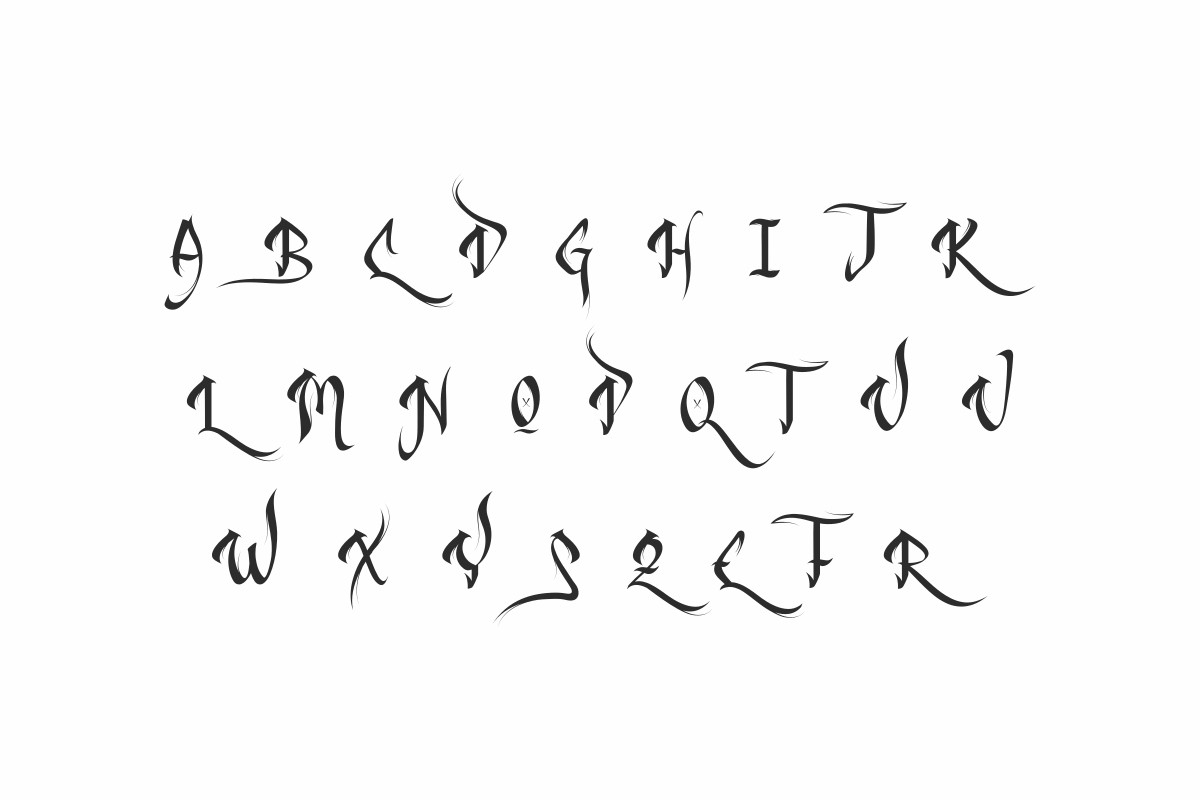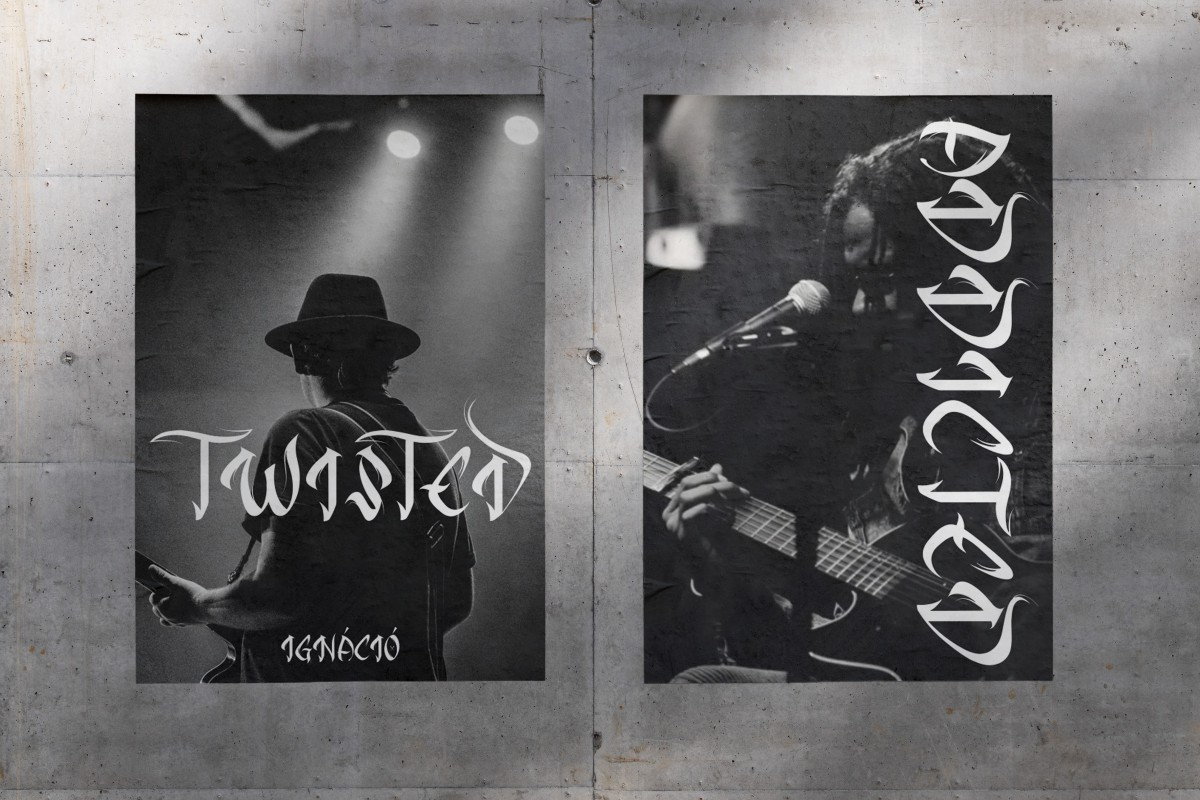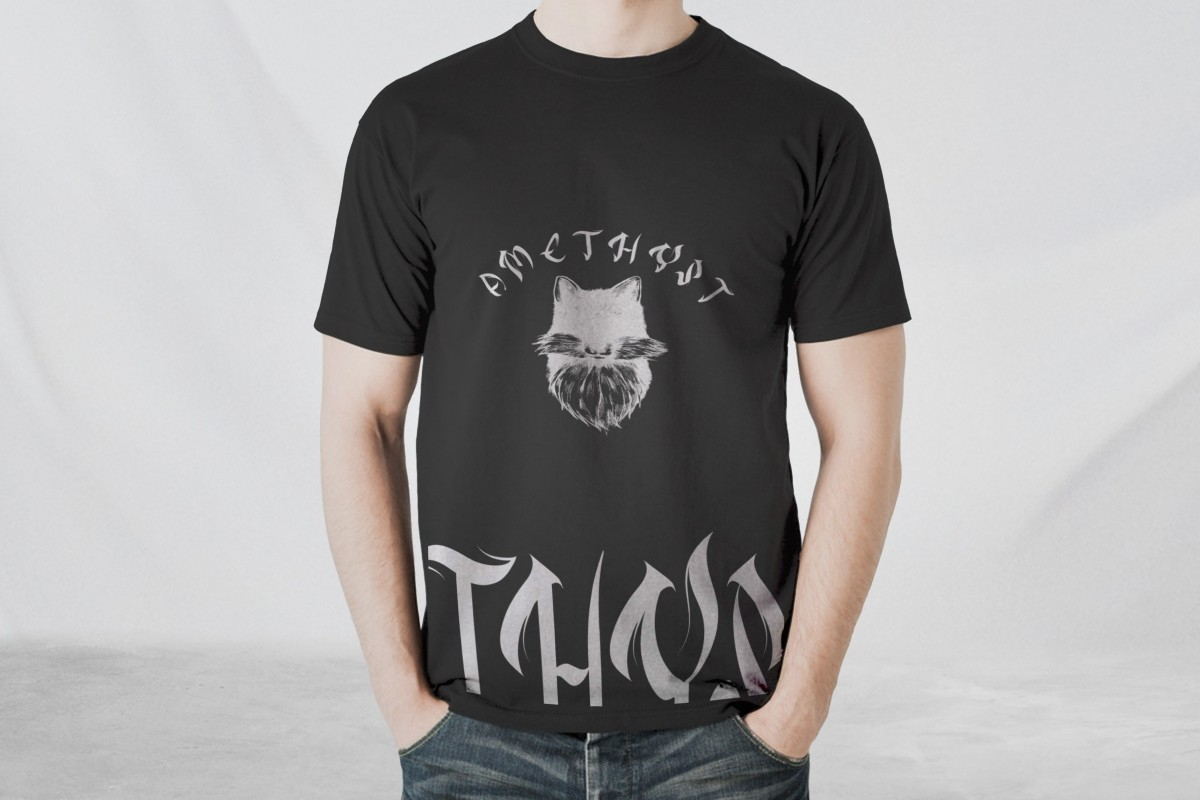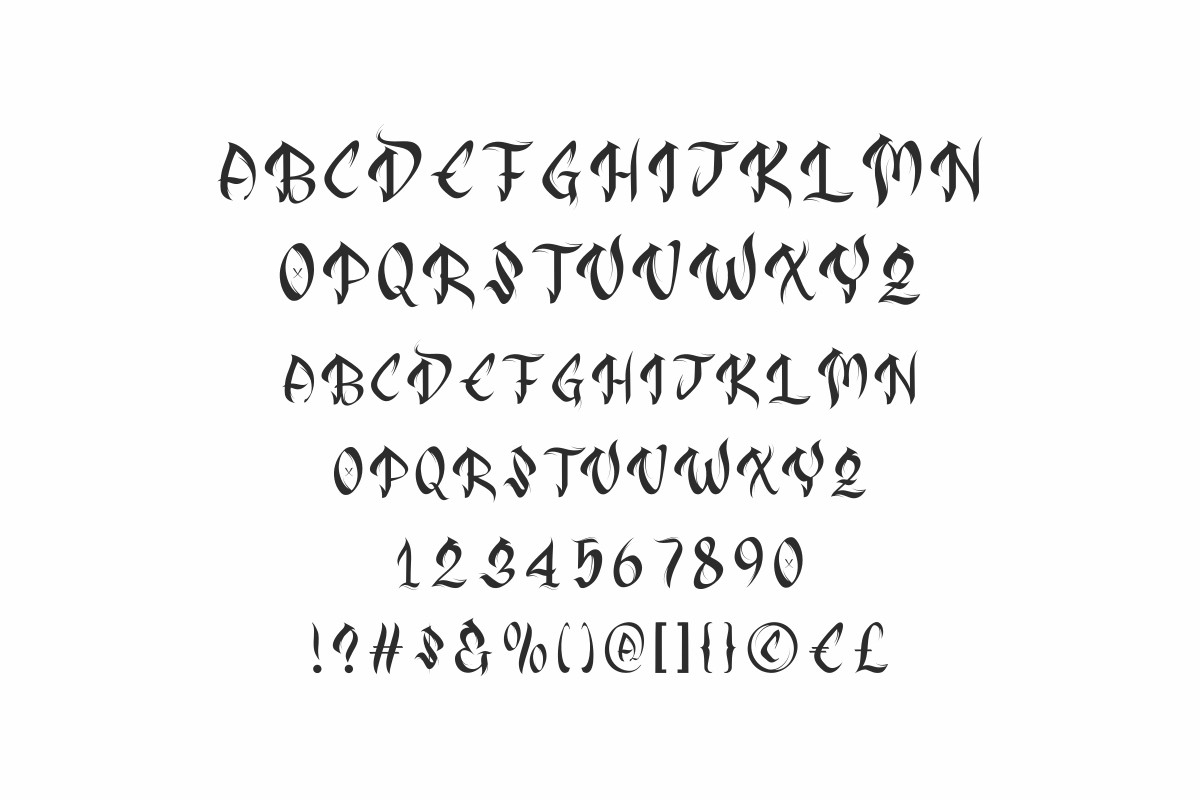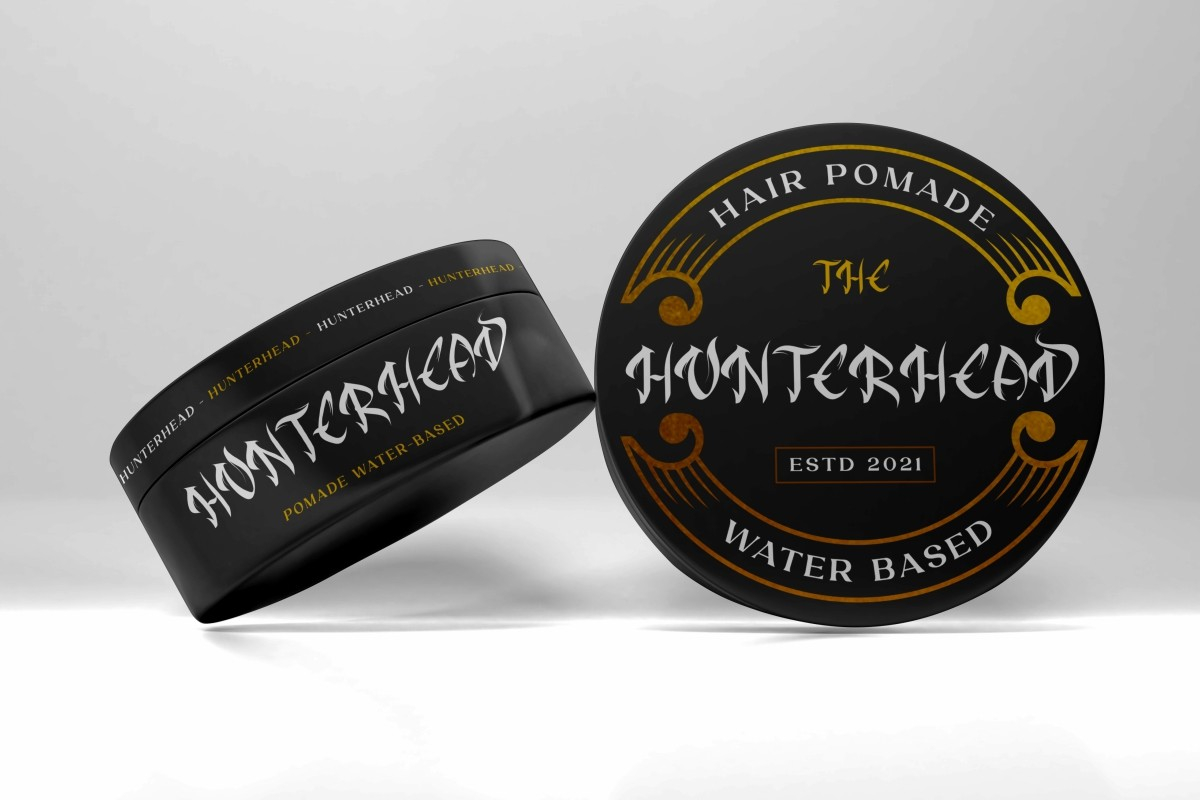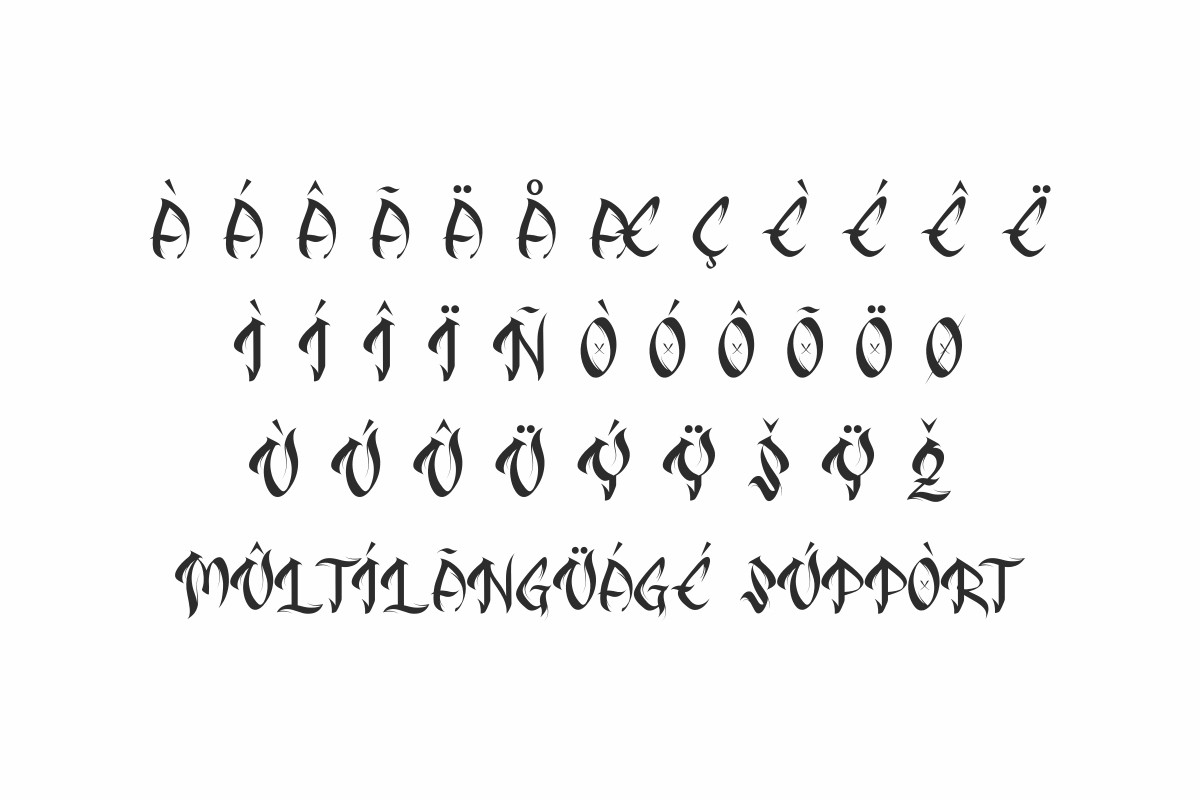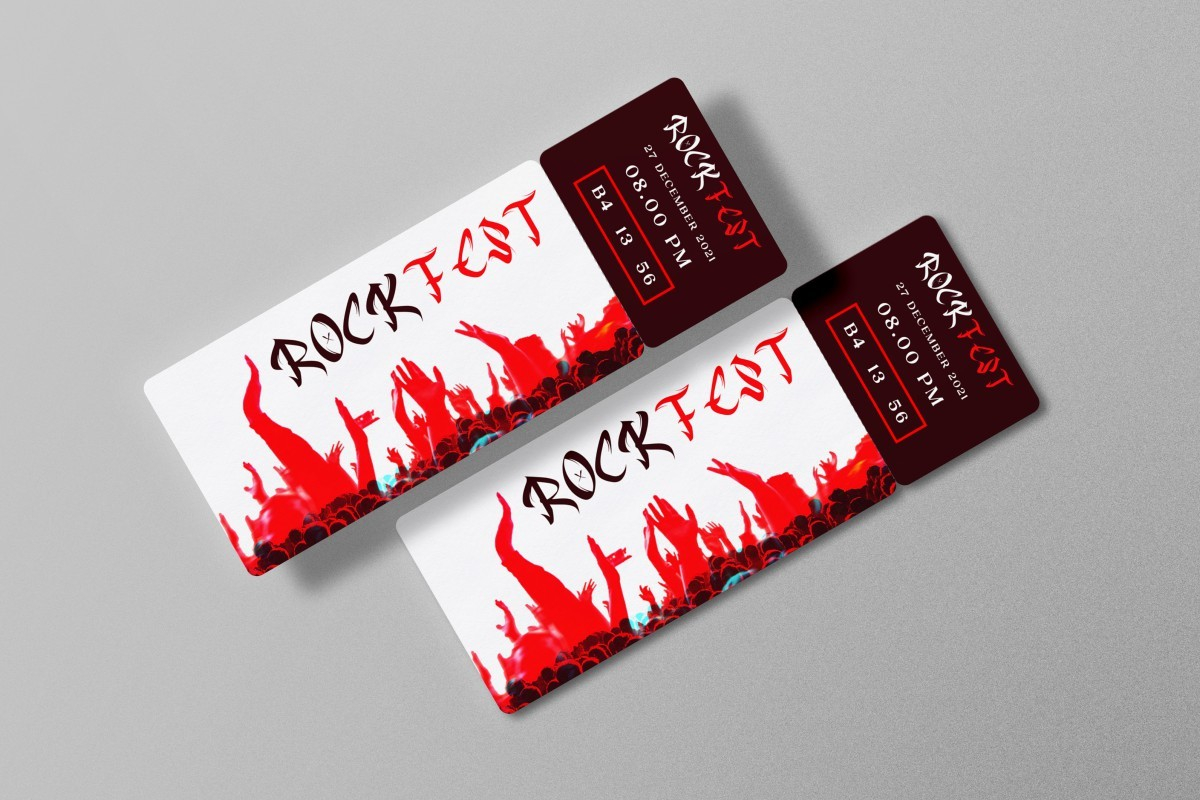
Bad Rocker Font
Bad Rocker is a cool and assertive blackletter font with rock star styles on its letters.
This font is perfect for many projects including : headings, logos, branding design, quotes, products, and more! Bad Rocker is PUA encoded which means you can access all of the glyphs and swashes with ease!